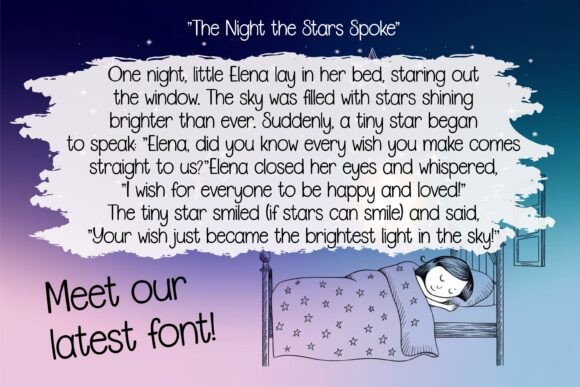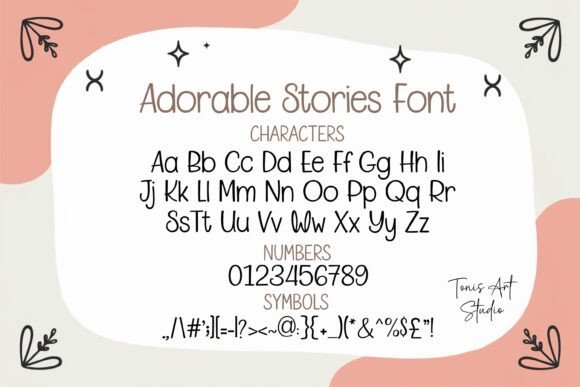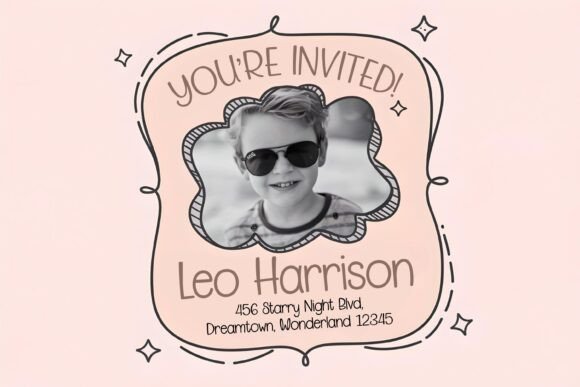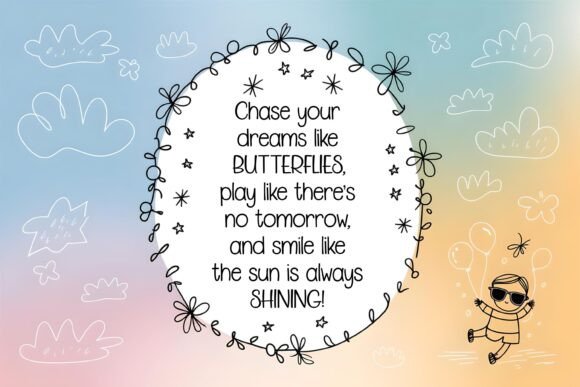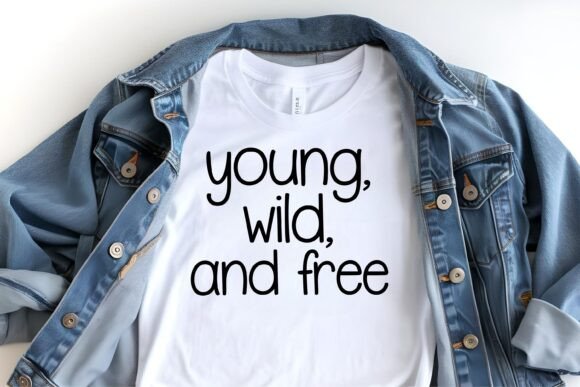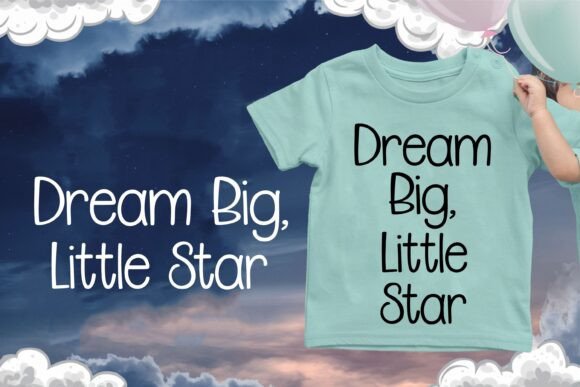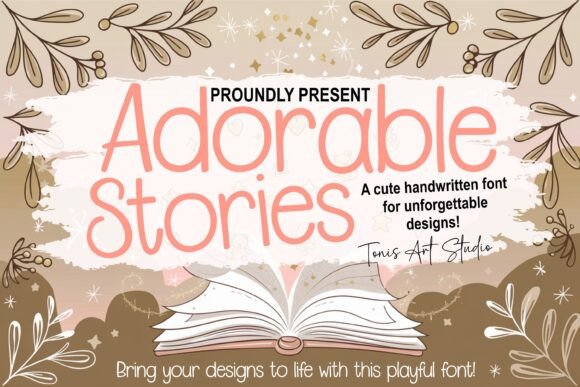
Adorable Stories Font: The Perfect Choice for Whimsical Designs
Are you a designer or crafter looking for a font that can add a touch of magic to your creations? Look no further than Adorable Stories Font, a fun and playful handwritten font that’s perfect for child-inspired designs. With its whimsical style, this font is sure to bring a smile to anyone’s face.
What is Adorable Stories Font?
Adorable Stories Font is a unique and charming handwritten font that’s designed to evoke a sense of wonder and enchantment. Its playful and carefree style makes it ideal for designs that require a touch of personality and whimsy. Whether you’re creating cards, posters, storybooks, or any other type of design, Adorable Stories Font is sure to make it stand out.
Characteristics of Adorable Stories Font
So, what makes Adorable Stories Font so special? Here are just a few of its key characteristics:
- Handwritten style: Adorable Stories Font has a distinctly handwritten feel, with each letter and word carefully crafted to look like it was written with love and care.
- Whimsical design: This font features a range of playful and whimsical design elements, including swashes, flourishes, and other decorative touches.
- Magical feel: Adorable Stories Font has a distinctly magical feel, making it perfect for designs that require a touch of enchantment and wonder.
- Child-friendly: This font is designed to be child-friendly, making it perfect for use in kids’ storybooks, nursery decor, and other child-focused designs.
Uses for Adorable Stories Font
So, what can you use Adorable Stories Font for? The possibilities are endless! Here are just a few ideas to get you started:
- Kids’ storybooks: Adorable Stories Font is perfect for creating engaging and interactive storybooks for kids.
- Cards and invitations: This font is ideal for creating custom cards and invitations for kids’ parties, birthdays, and other special occasions.
- Posters and flyers: Adorable Stories Font can add a touch of whimsy and fun to posters and flyers for kids’ events, activities, and attractions.
- Digital art and craft projects: This font is perfect for use in digital art and craft projects, such as printable art, planners, and journals.
Tips for Using Adorable Stories Font
Here are a few tips for getting the most out of Adorable Stories Font:
- Use it with color: Adorable Stories Font looks amazing with bright, bold colors. Try pairing it with a range of colors to create a fun and playful design.
- Experiment with sizes: This font looks great in a range of sizes, from small and delicate to large and bold. Experiment with different sizes to find the one that works best for your design.
- Add embellishments: Adorable Stories Font is perfect for use with embellishments, such as stickers, stamps, and other craft supplies. Try adding a few embellishments to give your design a personal touch.
Adorable Stories Font is a fun and playful handwritten font that’s perfect for designers and crafters who want to add a touch of magic to their creations. With its whimsical style and child-friendly design, this font is sure to bring a smile to anyone’s face. Whether you’re creating cards, posters, storybooks, or any other type of design, Adorable Stories Font is the perfect choice.